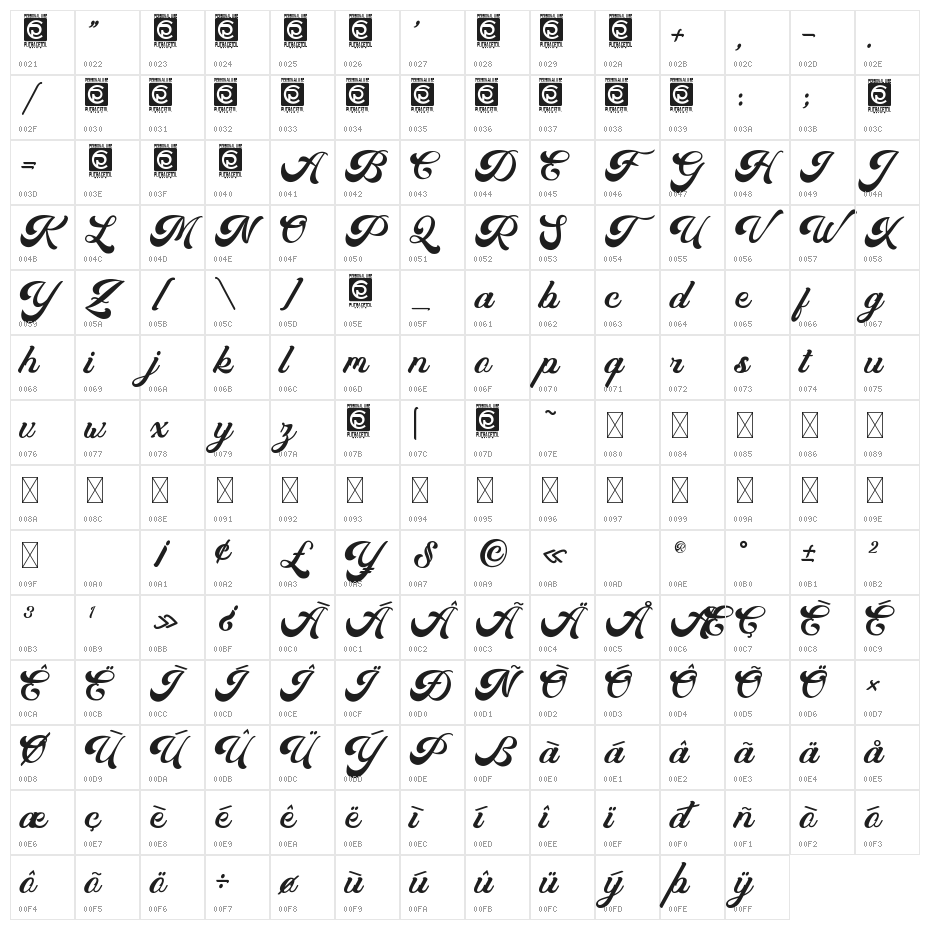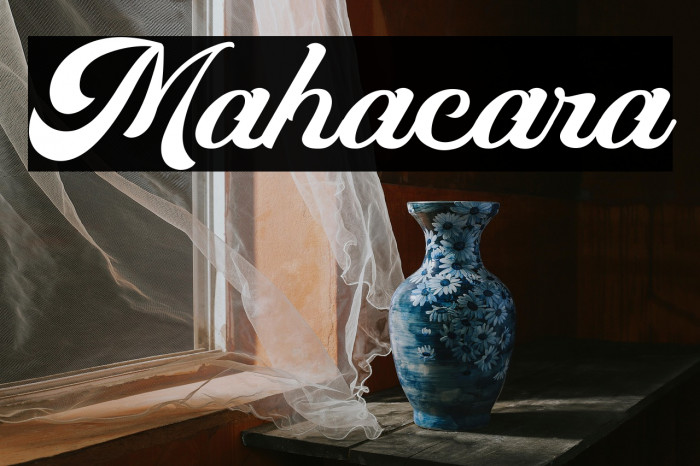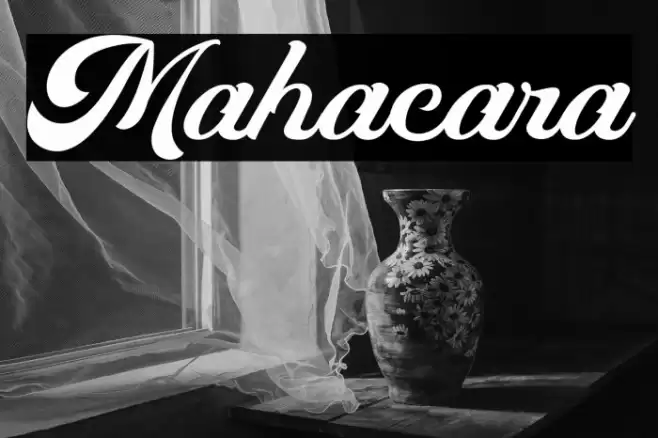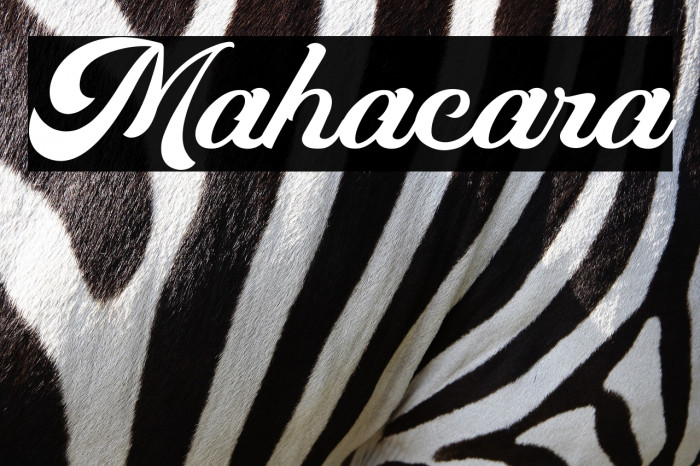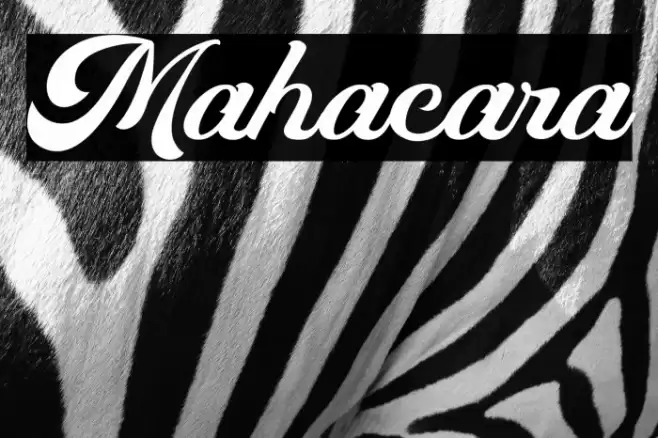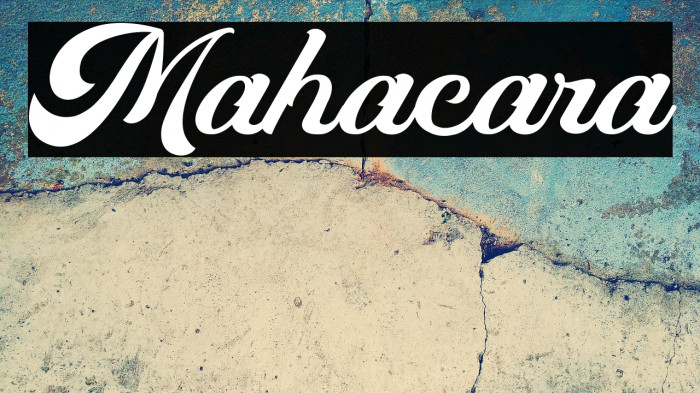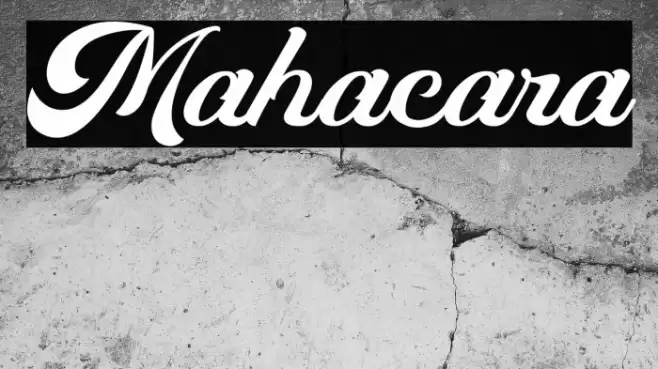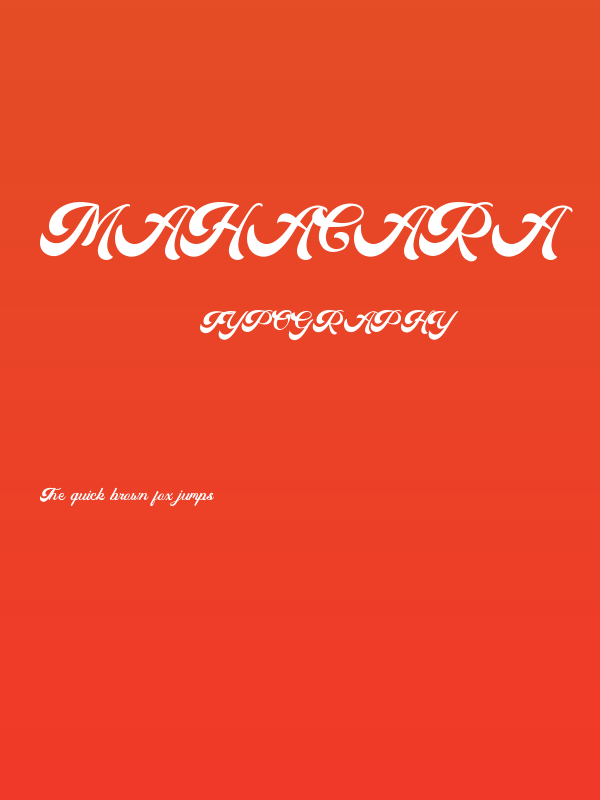
Mahacara Font
Mahacara Description
This font features a bold, cursive style with a strong emphasis on fluidity and elegance. The uppercase letters are characterized by sweeping curves and intricate loops, giving them a dynamic and sophisticated appearance. The lowercase letters maintain a consistent flow, with smooth connections between each character, enhancing readability while preserving the decorative nature. The numbers and special characters are designed to match the overall aesthetic, ensuring a cohesive look across all text elements. This font's bold strokes and high contrast make it stand out, suitable for projects that require a touch of elegance and flair.